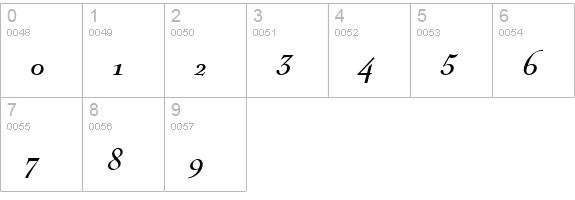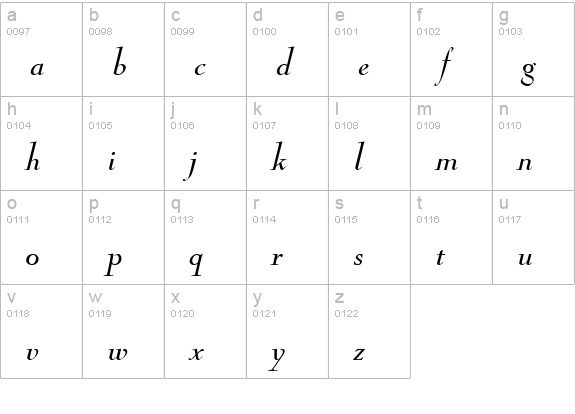
NicolasCocTEEReg Italic Font Details
NicolasCocTEEReg Italic is a distinctive, italic variant in the NicolasCocTEEReg typeface family \xE2\x80\x94 well suited to design and typography projects.
NicolasCocTEEReg Italic font is a stylish and modern typeface that exudes elegance and sophistication. Its sleek and contemporary design makes it perfect for a wide range of projects, from branding to editorial design. The italic style adds a touch of flair and dynamism to your text, making it stand out in any layout. This versatile font is freely available to download at FontsMarket.com, allowing you to easily incorporate it into your creative projects without any hassle. With its clean lines and balanced proportions, NicolasCocTEEReg Italic font is sure to elevate your designs and leave a lasting impression on your audience. Whether you're working on a website, poster, or packaging design, this font is a fantastic choice for adding a touch of sophistication and style.